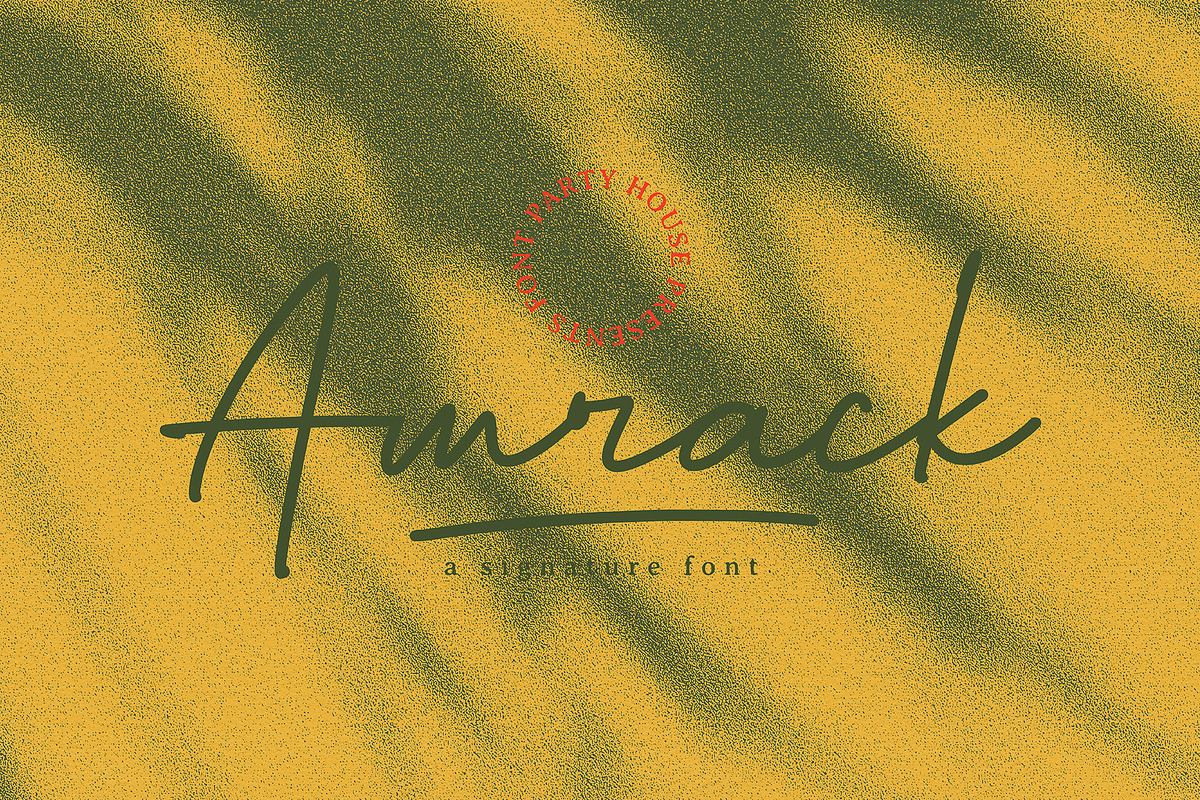
Amrack Signature Font Free Download is the perfect choice for creatives seeking a high-end, handwritten aesthetic. This elegant signature-style font brings class and sophistication to any project, making it ideal for branding, personal logos, wedding stationery, product packaging, and fashion editorials.
With its smooth, stylish strokes and natural pen flow, Amrack exudes personality and professionalism. Whether you’re working on a modern business card or a romantic invitation, this font delivers a touch of luxury that feels both personal and polished.
Amrack Signature Font Free Download includes both upper and lowercase characters, punctuation, and stunning ligatures that enhance the handwritten feel. It’s fully compatible with Adobe Creative Suite, Canva, and most major design platforms — so you can jump straight into experimenting with your ideas.